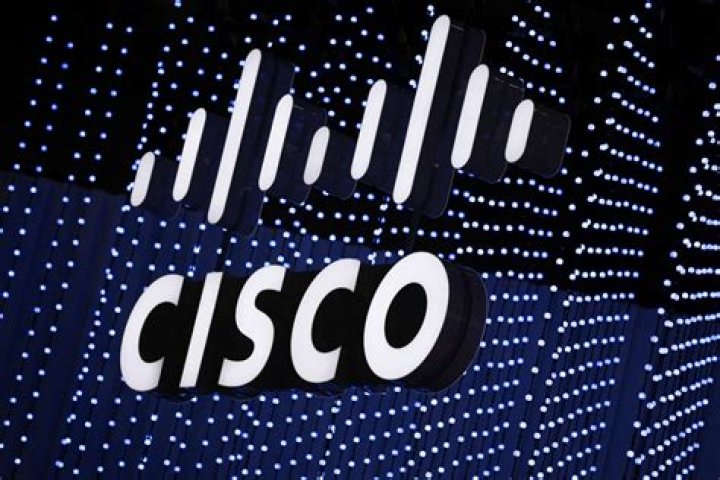
What font is the Cisco logo?
Cisco has a combination mark logo created with Futura Bold font. The font is a common one today but its popularity can well be attributed to the CISCO logo.